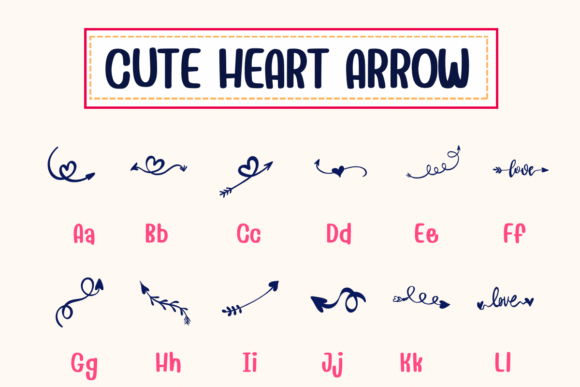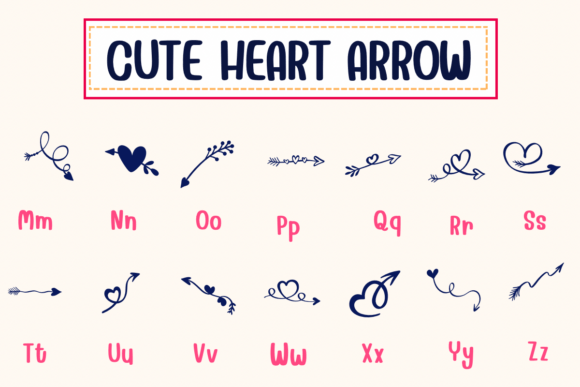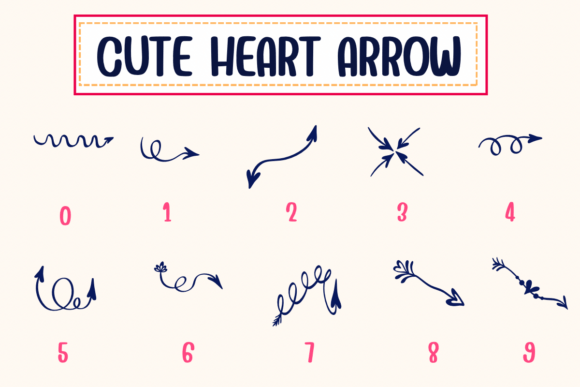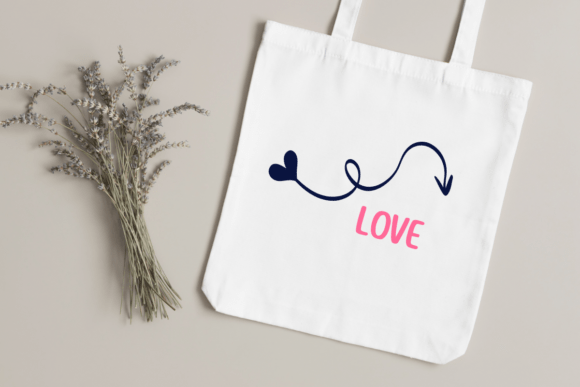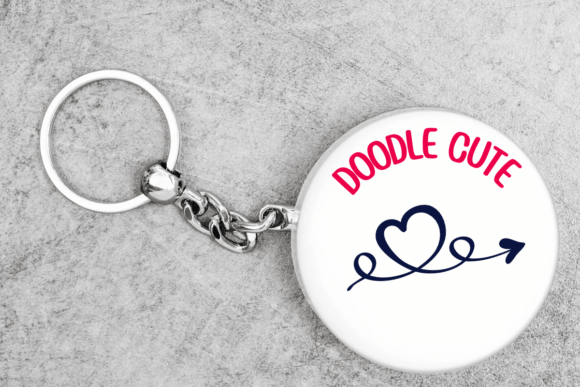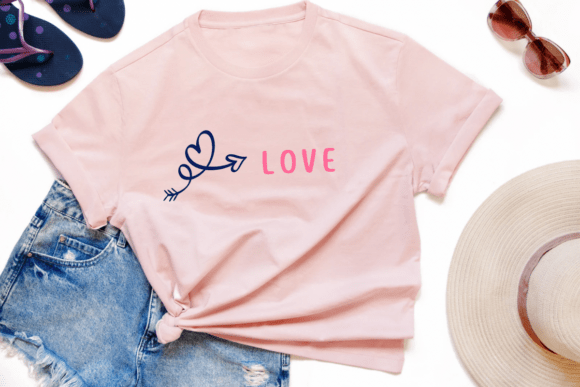
Introduction to Cute Heart Arrow Font
Have you ever stumbled upon the perfect design element while brainstorming a creative project, and suddenly, everything falls into place? That’s exactly what happened when I discovered the Cute Heart Arrow Font. This adorable dingbats font with a sketch style is the perfect addition to any design, and I’m excited to share its charm with you.
As a designer, I know how valuable it is to have access to a wide range of high-quality design resources. The Cute Heart Arrow Font is a game-changer for anyone working on creative projects, from wedding invitations to DIY crafts and decorations. Its transparent background makes it easy to layer with other design elements, and the free download option is a bonus.
Key Features of Cute Heart Arrow Font
- Unique and playful design suitable for various creative projects and design resources.
- Comes with a transparent background, allowing for easy customization and layering in your design.
- Features a range of cute heart arrow characters, including single and double arrows, perfect for conveying love and affection.
- Perfect for designers, artists, and writers looking for a charming and whimsical font for their next creative project.
- High-quality design ensures crisp and clear rendering across various devices and platforms.
Honest Review: Cute Heart Arrow Font
I recently stumbled upon the Cute Heart Arrow Font while searching for design resources for my latest creative project. I was immediately drawn to its playful and charming aesthetic. As a designer, I appreciate fonts that can add a touch of whimsy to my designs, and this font delivers.
- What works well: ✨ The font is incredibly versatile and can be used for a variety of designs, from social media graphics to wedding invitations. It’s also a high-quality font with clear and smooth lines.
- What works well: ✨ The font is available for free download, which is a huge plus for designers on a budget. It’s also available in a transparent background option, making it easy to use in designs with complex backgrounds.
However, there are a few limitations to keep in mind. ⚠️ The font is not suitable for formal or professional designs, as it’s more geared towards playful and creative projects. Additionally, the font may not be compatible with all operating systems or design software.
Overall, I’m impressed with the Cute Heart Arrow Font and would highly recommend it to designers looking for a fun and creative font for their next project. It’s a great addition to any design resource library and is sure to add a touch of personality to your designs.
Cute Heart Arrow Font is a high-quality design resource ideal for various creative projects. It offers a unique and playful touch to your designs, making it perfect for romantic or Valentine’s Day-themed projects.
Tips for Getting the Most Out of Cute Heart Arrow Font
To get the most out of Cute Heart Arrow Font, experiment with different font sizes, colors, and combinations with other design elements. You can also use it in conjunction with other design resources to create unique and eye-catching designs.
Cute Heart Arrow Font is perfect for romantic-themed projects, Valentine’s Day designs, and any other project that requires a playful and whimsical touch. You can also use it in social media graphics, blog posts, or other online content to add a touch of personality.